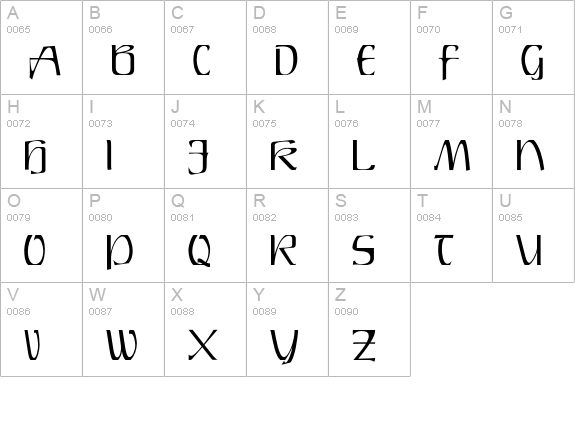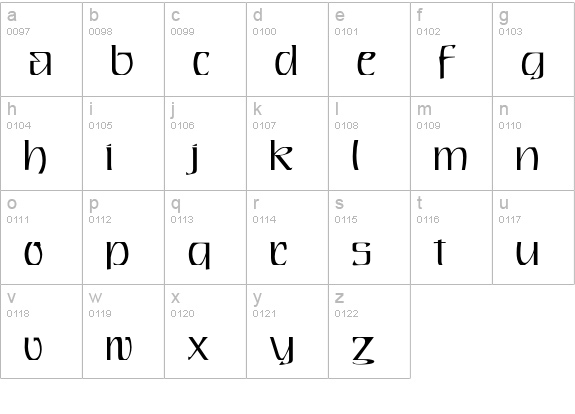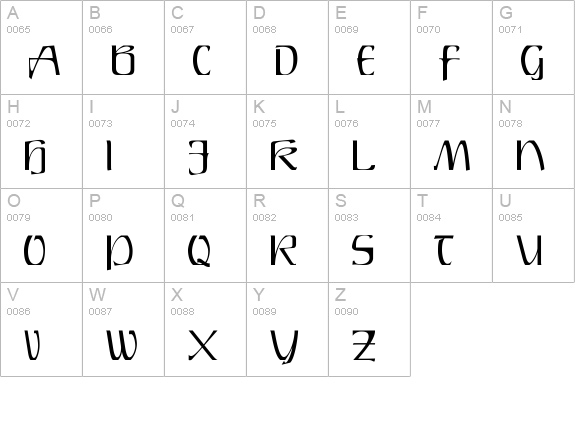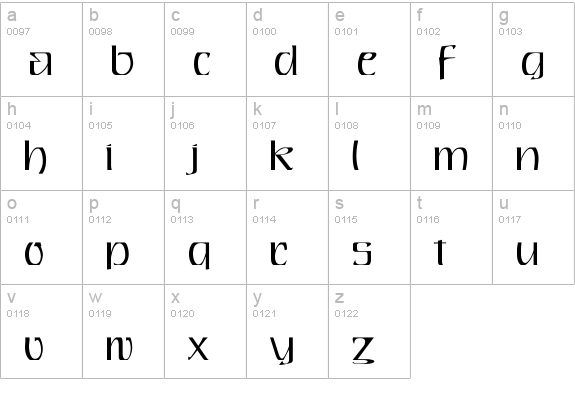
Introducing Rathskellar, a captivating and versatile font that effortlessly combines elegance with a touch of vintage charm. This exquisite typeface is the perfect choice for those seeking to add a sophisticated and timeless feel to their designs. With its meticulously crafted letterforms and meticulous attention to detail, Rathskellar is sure to make a lasting impression. Featuring a seamless blend of classic and modern influences, Rathskellar brings a unique flair to any project. Whether you are designing a logo, crafting an invitation, or creating stylish branding materials, this font is bound to elevate your work to new heights. What makes Rathskellar even more desirable is the fact that it is available for free download exclusively at FontsMarket.com. Say goodbye to expensive font purchases and hello to this remarkable typeface, offered freely to all designers and creatives. With Rathskellar, you have the freedom to explore and experiment, unlocking endless possibilities for your next design endeavor. The beauty of Rathskellar lies not only in its captivating aesthetics but also in its exceptional legibility. Each character is expertly designed, ensuring clarity and readability across various mediums and sizes. The carefully crafted curves and precise strokes make Rathskellar a joy to work with, both on-screen and in print. With a wide range of weights and styles to choose from, Rathskellar offers versatility and flexibility, allowing you to effortlessly convey different moods and messages. Whether you are aiming for a refined and elegant look or a bold and impactful statement, this font has got you covered. Download Rathskellar today from FontsMarket.com and unlock the power of this remarkable typeface. Join the community of designers who have embraced this font's timeless appeal and enjoy the freedom to create stunning designs without breaking the bank. With Rathskellar, the possibilities are limitless, and your creativity knows no bounds.